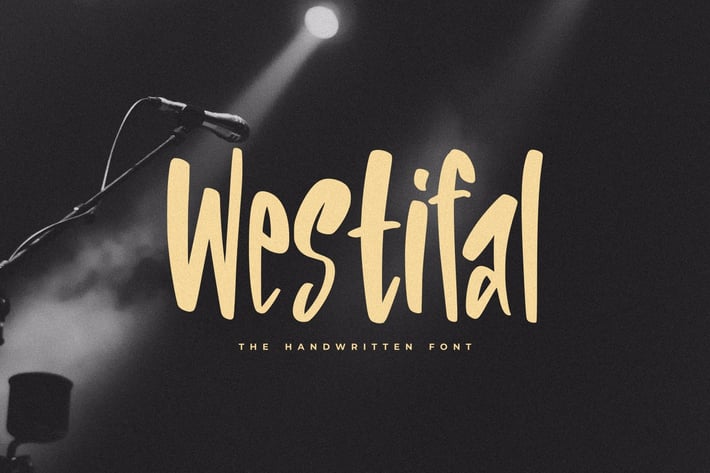
Westifal - The Handwritten Font
Westifal - The Handwritten Font, every single letter has been carefully crafted to make your text looks beautiful. it's perfect for logos, name cards, magazine layouts, invitations, headers, or even large-scale artwork.
- Westifal font including upper & lowercase characters, numerals and more of symbols.
- Support International Character